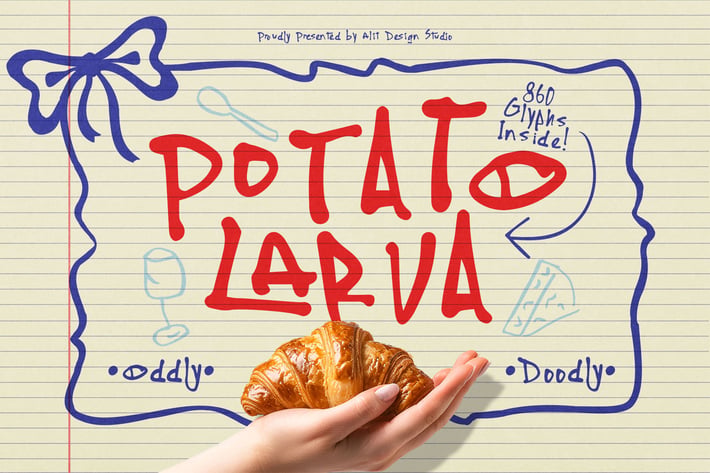
Potato Larva Typeface
Introducing the Potato Larva Typeface, where handwritten charm meets quirky sophistication. Crafted with the finesse of an ink sketch, each character exudes a whimsical allure that's both playful and distinctive.
With 860 characters at your disposal, including alternates, ligatures, and comprehensive multilingual support, Potato Larva Typeface offers unparalleled versatility for your creative endeavors. Whether you're designing invitations, crafting logos, or adding a personal touch to your projects, this font elevates your work with its eclectic yet cohesive aesthetic.
Embrace the spontaneity of the handwritten strokes, where every letter feels like a unique creation. From the looping curves to the jagged edges, each character tells its own story, adding depth and character to your designs.
Potato Larva Typeface is more than just a font; it's a statement piece, a testament to the beauty found in imperfection. Embrace the naivety, revel in the randomness, and let your creativity flourish with this one-of-a-kind typeface.